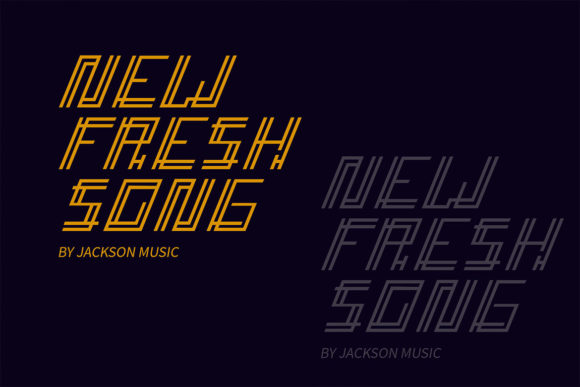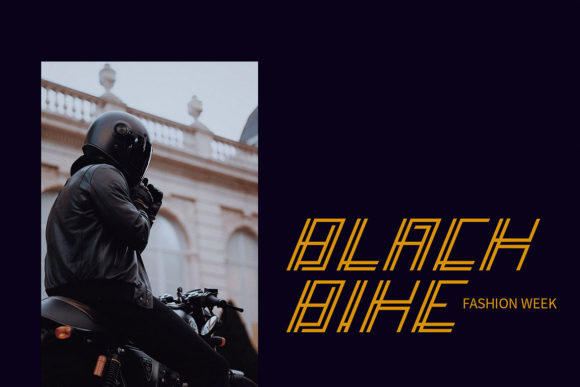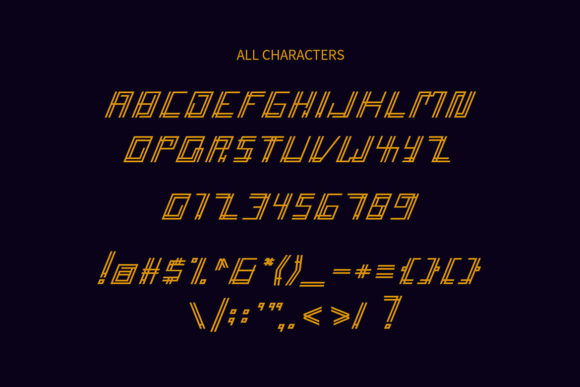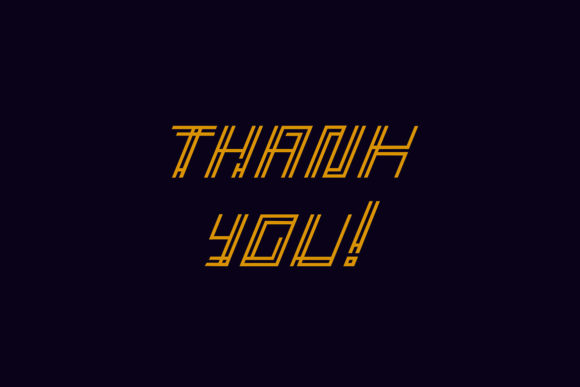
Unlock Your Creativity with Accelera Font
Have you ever been struck by a burst of creative energy, and suddenly, your imagination is flooded with ideas? For designers, this moment is a thrill, and with the right tools, it can be a game-changer. One such tool is the Accelera Font, a display font that embodies the essence of abstract shapes and eclectic brilliance.
This font is not just another addition to your design arsenal; it’s a key to unlocking your full creative potential. With its unique style and versatility, Accelera Font is the perfect companion for designers looking to make their work stand out. Whether you’re working on a logo, a poster, or a digital campaign, this font will add a touch of sophistication and flair to your designs.
Accelera Font Key Features
- Size: The font family includes 24 styles, ranging from Thin to ExtraBold, providing a versatile and comprehensive solution for various design needs.
- Resolution: Accelera Font is designed to be scalable and legible at high resolutions, making it ideal for use in digital media, such as websites, apps, and e-books.
- Unique Characteristics: Accelera Font features a sleek and modern design, with a focus on clean lines, geometric shapes, and a subtle sense of movement, making it perfect for contemporary and innovative projects.
Accelera Font Review
Accelera Font is a unique and eye-catching font that can definitely make a statement in your design projects. ✨ One of the things I like about this font is its versatility. It can be used for both modern and futuristic designs, making it a great choice for a wide range of applications.
- ✨ Geometric shapes and angles give the font a modern feel.
- ✨ Suitable for digital and print designs.
- ✨ Offers a lot of customization options.
However, like any font, Accelera has its limitations. ⚠️ One of the main issues I have with this font is its readability. The bold lines and sharp angles can make it difficult to read, especially in small text sizes. Additionally, the font may not be suitable for designs that require a lot of text, as it can be quite overwhelming.
- ⚠️ Readability issues with small text sizes.
- ⚠️ May be overwhelming in designs with a lot of text.
Overall, I think Accelera Font is a great choice for designers who want to add a modern and futuristic touch to their projects. However, it’s essential to use it in moderation and in conjunction with other fonts to avoid overwhelming the design.
Tips for Getting the Most Out of Accelera Font
Use Accelera Font for titles, headings, and emphasis in your designs. Pair it with clean sans-serif fonts for body text. Experiment with different font sizes and colors to create visual hierarchy.
Accelera Font is ideal for:
– Advertising and marketing materials
– Corporate identity and presentations
– Digital and print media